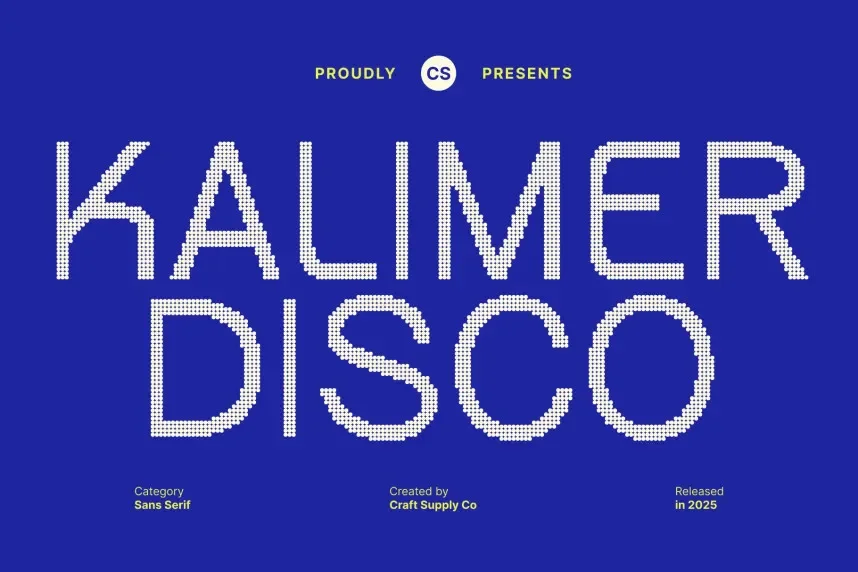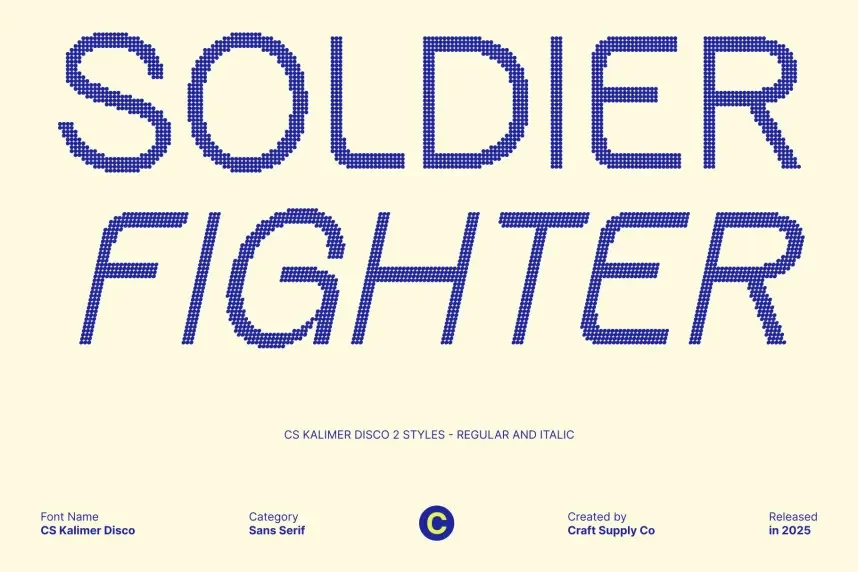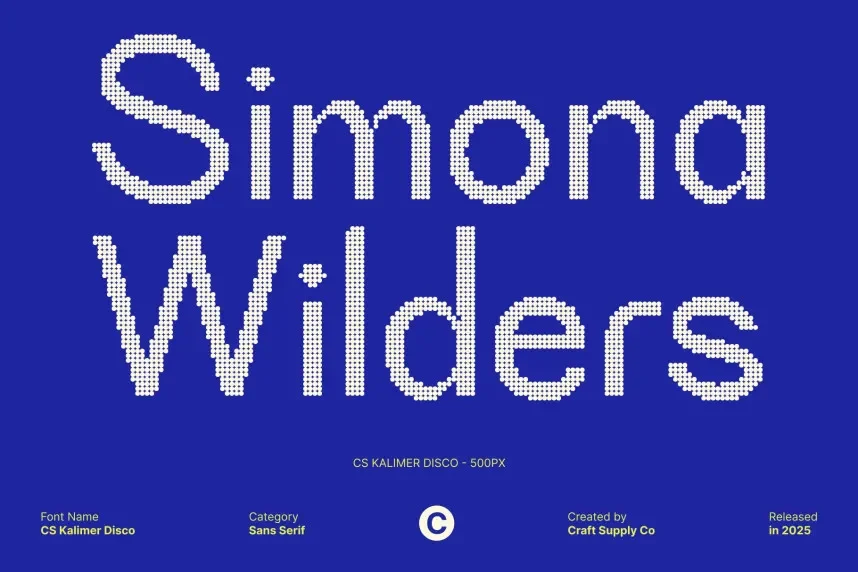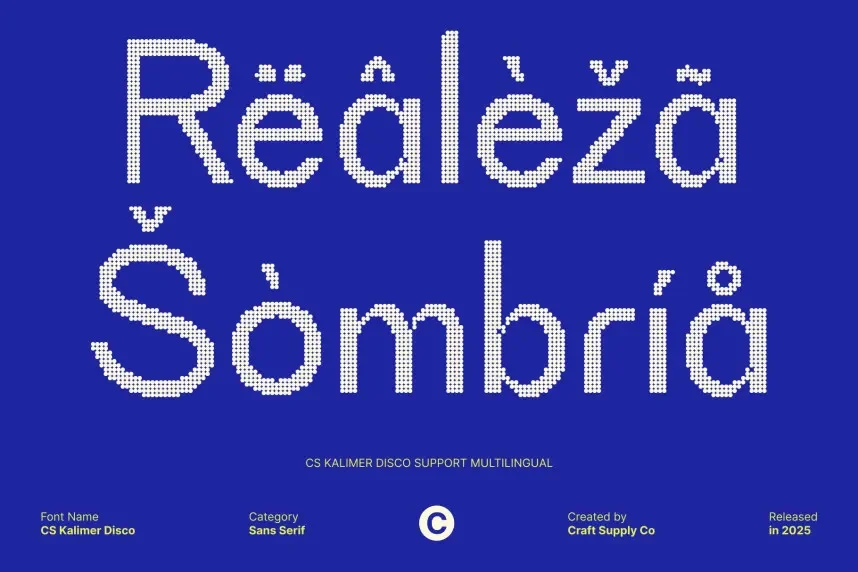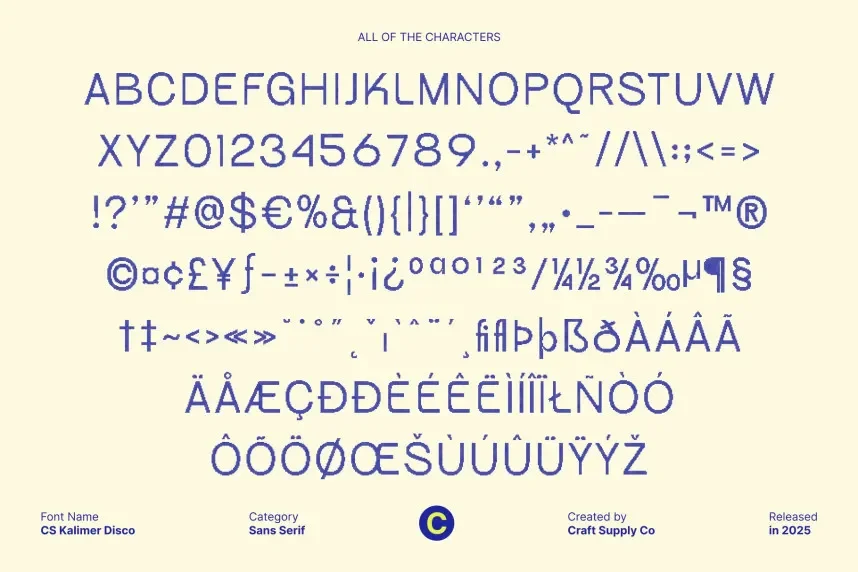
CS Kalimer Disco Font is a playful display typeface that captures the fun and energy of the 70s disco era. Its round, bubbly shapes and unique character make it a great choice for retro-themed projects, including event posters, party invitations, and music-related branding.
Best used for eye-catching headlines, posters, and social media content, CS Kalimer Disco Font pairs well with simple serif or sans-serif fonts for body text. Available in TTF and OTF formats, it includes a commercial-use license. Always check licensing details before using it in commercial applications.